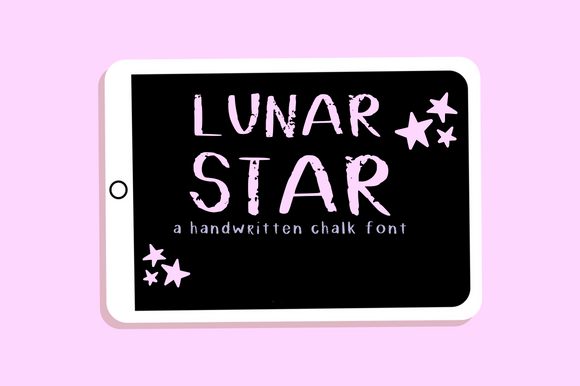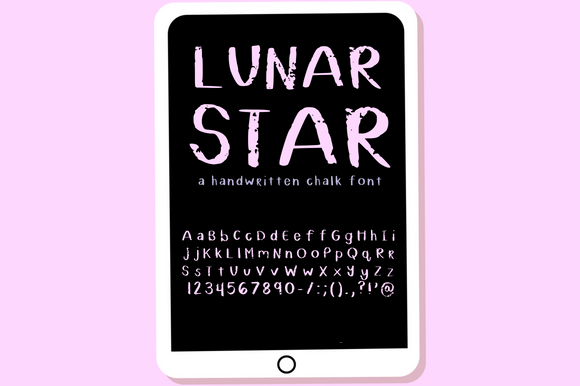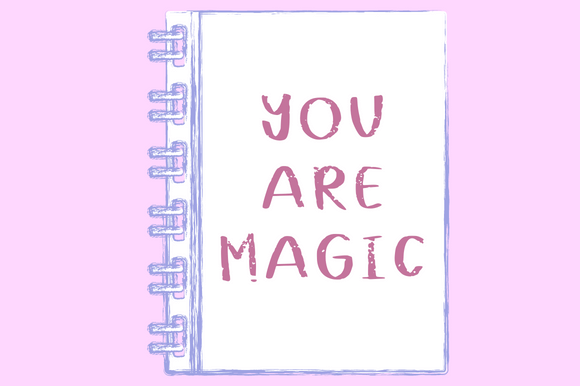
Lunar Star Font
Lunar Star Handwritten Font – Simple Chalk-Style Typeface
The Lunar Star Handwritten Font is a creative and casual chalk-style typeface that brings a handmade touch to your designs. With its natural handwritten flow and simple charm, it works beautifully in both print and digital projects. Whether you’re designing greeting cards, digital products, or fun social media graphics, this font adds a playful and personal edge.
A Handwritten Script with Chalk Style
The Lunar Star Handwritten Font blends a chalk-inspired texture with a handwritten flow. Its playful design makes it approachable and unique, while its balanced proportions keep it easy to read. Because of this, it adapts well to both casual crafts and professional projects where a natural handwritten style is needed.
Perfect for Greeting Cards and Digital Products
One of the strongest uses of the Lunar Star Handwritten Font is in greeting cards, planners, and DIY projects. Its casual strokes bring warmth to personal notes, while its chalk-style texture adds creativity to digital designs. It is also perfect for product packaging, event signage, and decorative posters.
The Lunar Star Handwritten Font adapts easily across different projects. From classroom materials and children’s projects to branding and digital artwork, it provides a casual handwritten charm. Its chalk-inspired style ensures it feels fun, modern, and creative in many design contexts.
Why Designers Love Lunar Star Font
Designers love the Lunar Star HandwrittenFont because it combines simplicity with creativity. Its chalk style makes it unique, while its readability keeps it practical. This blend makes it an ideal typeface for projects that need to stand out without losing clarity.
In summary, the Lunar Star HandwrittenFont is a simple, creative, and versatile chalk-style typeface. With its natural handwritten flow, quick installation, and broad usability, it is perfect for greeting cards, digital products, crafts, and branding. Don’t miss the chance to download Lunar Star HandwrittenFont and bring a playful handmade touch to your designs.